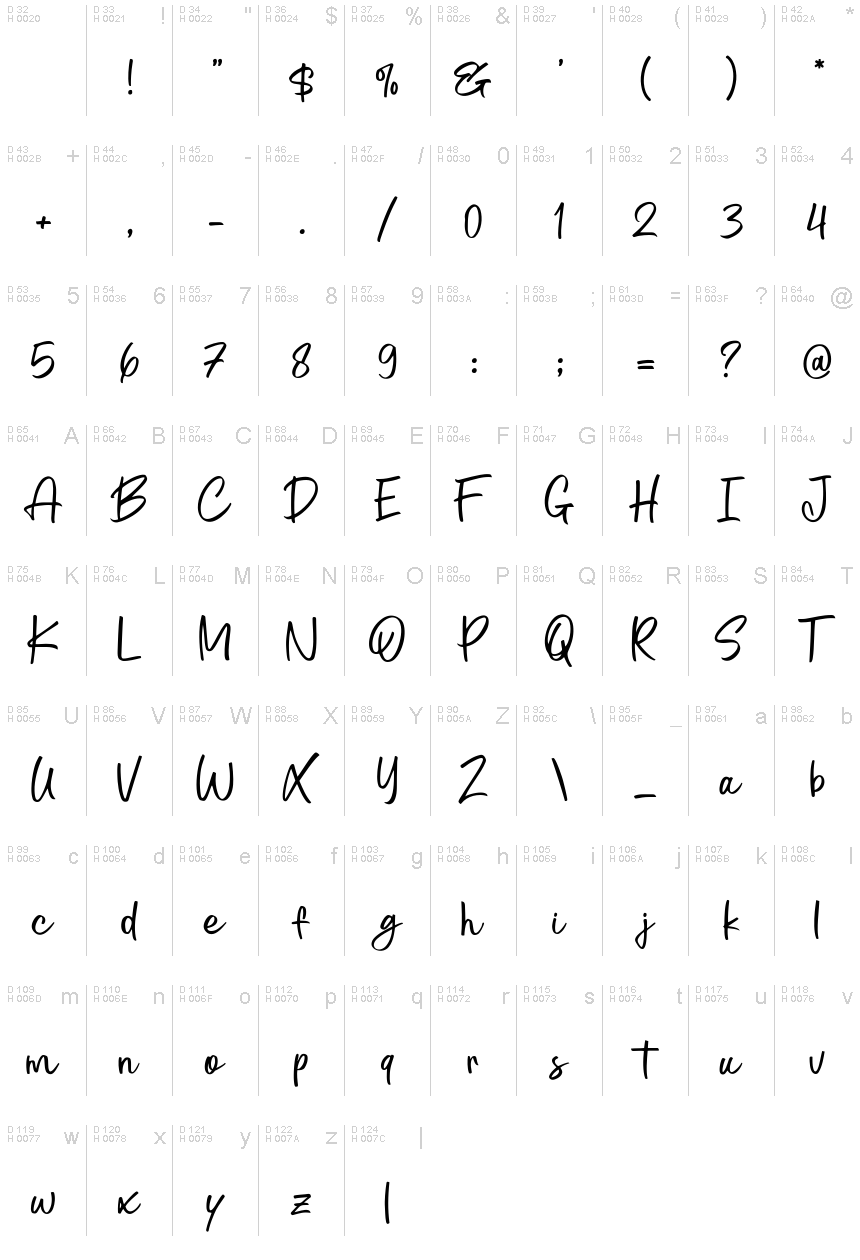
Vallite
Vallite, a captivating handwritten font crafted by Khurasan, effortlessly blends elegance and authenticity. This versatile typeface boasts a fluid, organic script that exudes a sense of warmth and individuality. Its expressive strokes and natural rhythm evoke a charming, hand-lettered aesthetic, making it a compelling choice for a wide range of design projects.
The Vallite font's distinctive character seamlessly adapts to various applications, from invitations and stationery to packaging and branding. Its adaptability allows designers to infuse their creations with a touch of artisanal flair, elevating the overall visual appeal and creating a memorable impression.